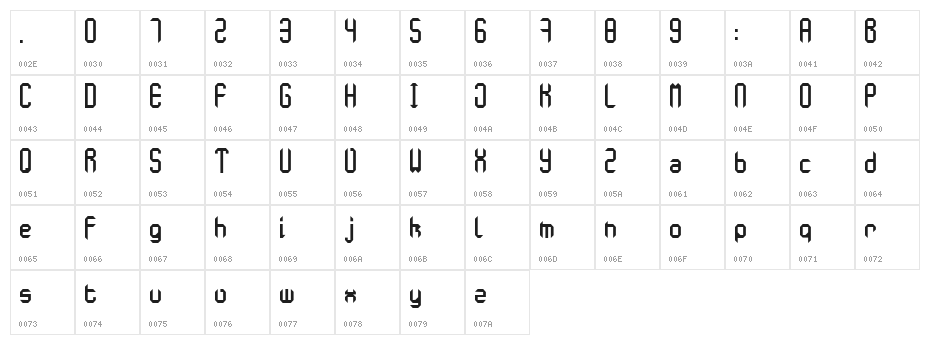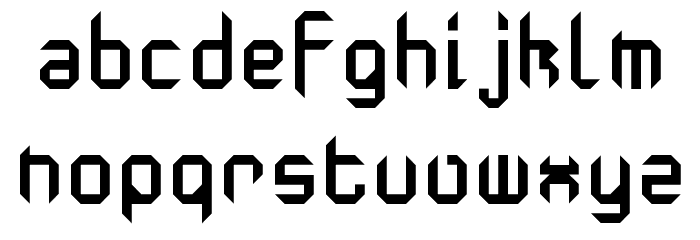
gogogogo Font
gogogogo Description
This font features a bold and geometric design with sharp angles and a futuristic feel. The characters are constructed with consistent thickness, giving it a uniform appearance. The uppercase letters have a strong presence, while the lowercase letters maintain the same angular style, creating a cohesive look. The numerals and special characters follow the same design principles, ensuring a harmonious overall aesthetic. This font is ideal for projects that require a modern and edgy look.
| Proposed Projects | Ideal for branding, posters, video game graphics, and sci-fi themed projects. |